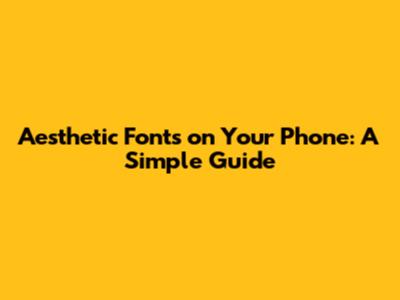
- Browse and Select a Font: Open the app and start browsing through the available fonts. Most apps have categories like "Stylish," "Cute," or "Modern" to help you find what you're looking for. When you find a font you like, tap on it to preview it.
- Mix and Match: Experiment with different fonts for different apps. Use a bold font for your headlines and a more elegant font for your body text. Have fun and get creative! It's all about finding what works best for you.
- Adjust Font Size: Most phones allow you to adjust the font size. Play around with this setting to find a size that's comfortable for your eyes. A slightly larger font can make reading easier, while a smaller font can give you more screen real estate.
- Consider Color: Some apps let you customize the font color. Try matching your font color to your wallpaper or phone case for a cohesive look. Just make sure the color contrast is good enough so that the text is still readable.
- Use Font Keyboards: Font keyboards allow you to type in different fonts directly in your messaging apps and social media apps. This is a great way to add some flair to your texts and posts.
- Explore Themes: Many Android phones offer themes that change the overall look of your phone, including the fonts. Check out the theme store on your phone and see if there are any themes that you like.
- Font Looks Weird: Sometimes, a font might not be compatible with your phone's screen resolution or software. If the font looks distorted or pixelated, try choosing a different font. You can also try adjusting the font size or weight in your phone's settings.
- Phone Slowing Down: In rare cases, using a custom font can slow down your phone. This is usually due to the font file being too large or the font app consuming too much memory. Try using a lighter font or uninstalling the font app if you notice a significant performance decrease.
Hey guys! Ever wanted to give your phone a little makeover? One of the easiest ways to do that is by changing up your font! A cool, aesthetic font can totally transform the look and feel of your device. So, let's dive into how you can make your phone look super stylish with some awesome fonts. We'll cover everything from finding the right apps to applying those fonts like a pro.
Why Bother with Aesthetic Fonts?
Let's be real, the default fonts on our phones can get a little boring after a while. Aesthetic fonts inject some personality and flair into your device. Imagine opening your phone and being greeted by a font that perfectly matches your vibe – whether it's playful, elegant, or bold. Plus, it's a fun way to express yourself and stand out from the crowd. A new font can make reading texts, browsing social media, or even just checking the time feel fresh and exciting.
Choosing the right font can also enhance readability. Some aesthetic fonts are designed with clarity in mind, making it easier on your eyes, especially if you spend a lot of time staring at your screen. Think of it as a mini-upgrade for your overall phone experience. And the best part? It's super easy to do!
Furthermore, changing fonts is a simple yet effective way to personalize your device to reflect your unique style and preferences. It's akin to choosing a phone case or a wallpaper that resonates with you. Aesthetic fonts allow you to curate a visual experience that is both pleasing and functional. Whether you're aiming for a minimalist look or a more flamboyant display, the right font can help you achieve the desired effect. The possibilities are endless, and the impact is significant.